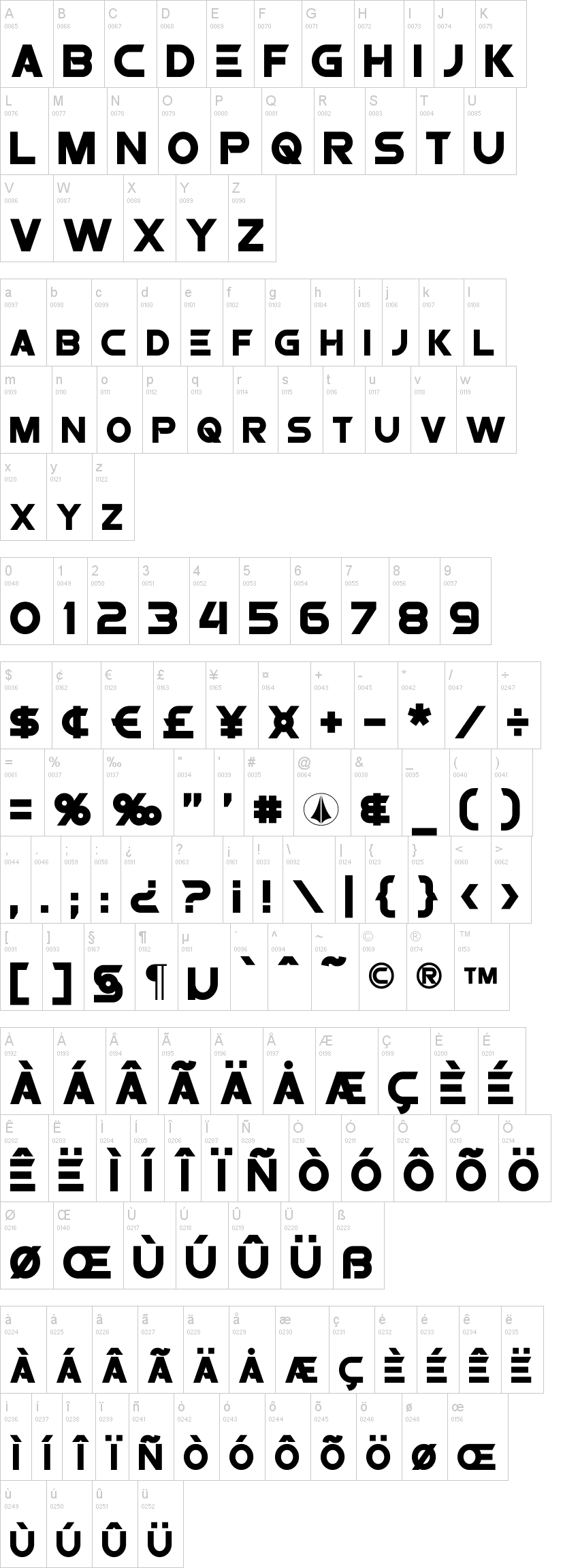
Protoculture Italic.otfProtoculture Bold.otfProtoculture Bold Italic.otfNote of the authorProtoculture is based heavily off of the title log of Harmony Gold's legendary Robotech series as well as more than a handful of other science-fiction properties. Includes full alphabet, extended punctuation, and the Euro. Available in regular, bold, italic, bold-italic weights.